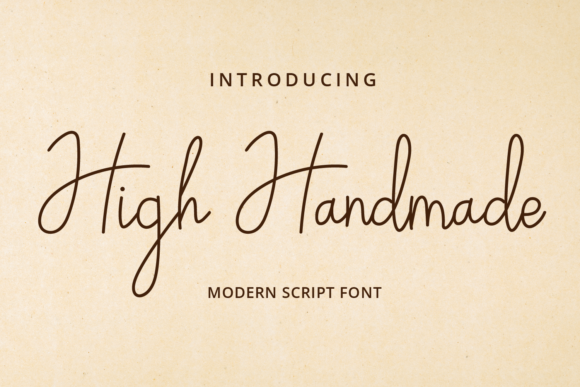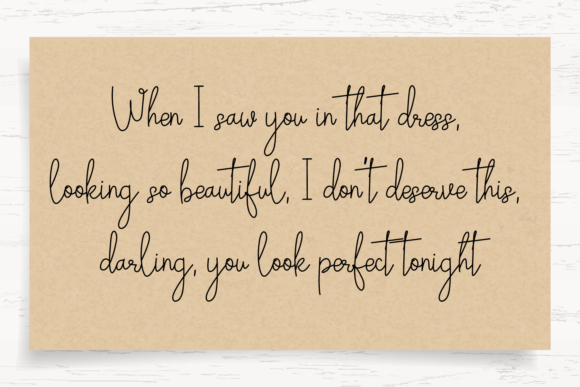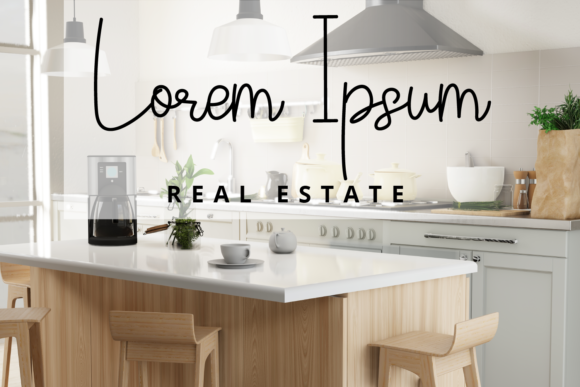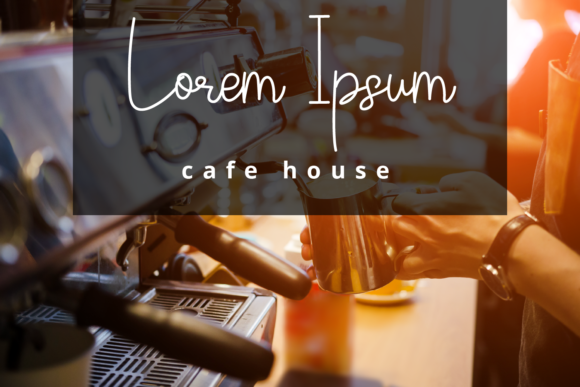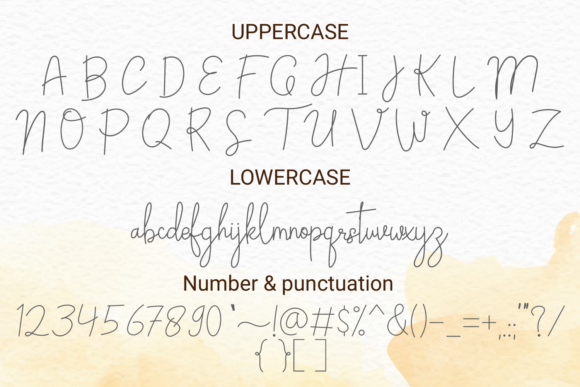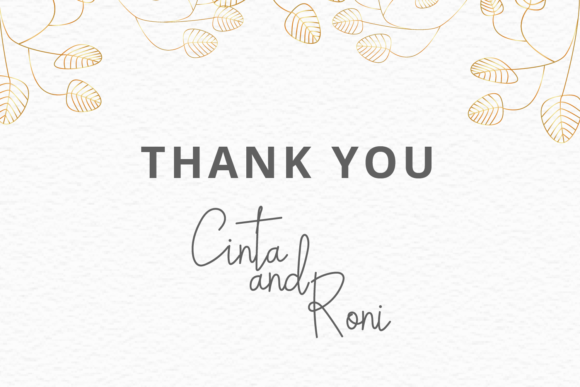
High Handmade Font
About High Handmade Font
Introducing High Handmade, an exquisite handwritten font that has been masterfully designed to become a true favorite among designers and creatives alike. With its perfect blend of classy calligraphic influences and contemporary freshness, High Handmade is a font that will elevate your projects to new heights.
The font’s elegant and flowing style exudes a sense of sophistication and refinement. Every character is meticulously crafted to maintain a balance between classic calligraphy and modern aesthetics, resulting in a truly timeless design. High Handmade will add an air of elegance and grace to any project it graces.
Whether you’re creating wedding invitations, thank you cards, quotes, greeting cards, logos, business cards, or any other design that requires a handwritten touch, High Handmade is the ideal choice. Its versatility allows it to complement a wide range of designs, making it a reliable and go-to option for various creative endeavors.
High Handmade is not just a font; it’s a powerful tool that can transform your projects into works of art. With its graceful curves, smooth lines, and stunning alternates, the font stands out in any context. Whether you use it for headlines, titles, or blocks of text, High Handmade adds a touch of luxury and exclusivity.
Fall in love with High Handmade and let it inspire your creativity. As you work with this exceptional font, you’ll notice how it effortlessly enhances your designs, adding a sense of refined elegance that captivates your audience. It is a font that speaks volumes about your attention to detail and dedication to quality.
In conclusion, High Handmade is a truly exquisite handwritten font that merges classic calligraphy with contemporary sophistication. It brings an air of elegance and grace to any project, making it a top choice for designers seeking to elevate their work. With High Handmade, your projects will reach new levels of beauty and appeal, leaving a lasting impression on those who experience your creations. Embrace the beauty and versatility of High Handmade and let your creativity shine!